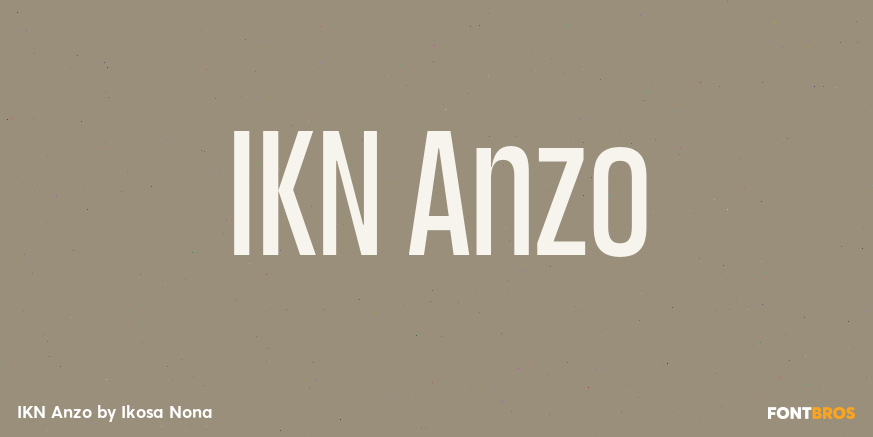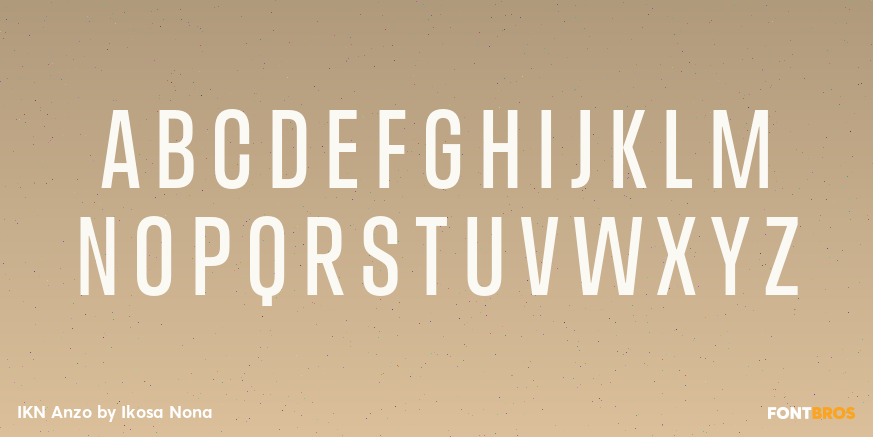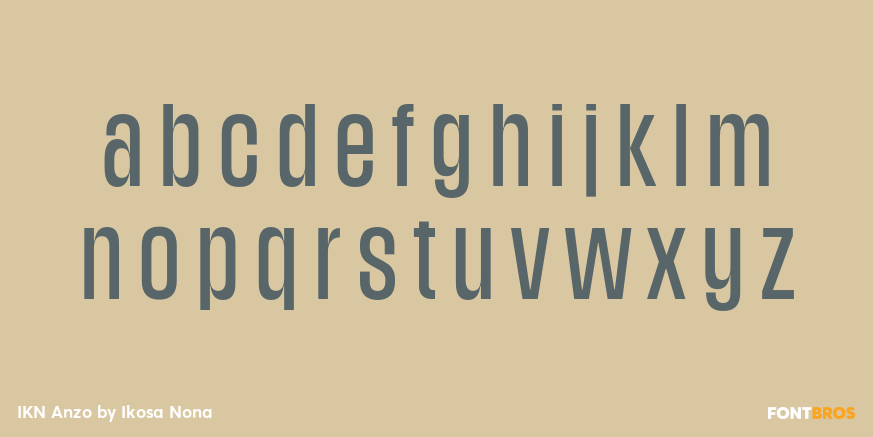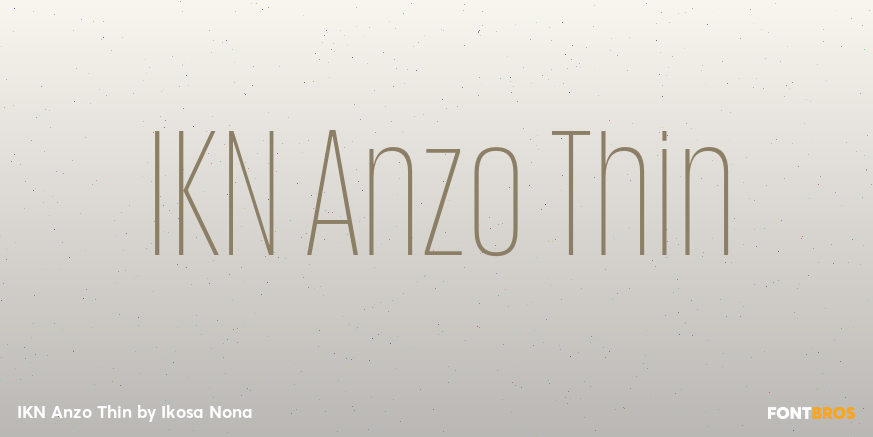
IKN Anzo
Buy NowIKN Anzo is a condensed sans-serif with tall, narrow proportions and a controlled, space efficient structure. It allows more text to fit horizontally while maintaining a confident vertical presence.
Ascenders, descenders, and diacritics are kept close to the core letterforms, creating a balanced and stable text block with an even typographic color.
Six carefully balanced weights provide a range of typographic contrast. Stylistic sets add flexibility through alternate forms for capital I and single-story a, as well as a choice between straight or rounded shapes in selected letters, allowing designers to fine-tune the tone from strictly linear to subtly softer.
Additional features such as circled numerals, slashed zeros, and arrows extend its use in editorial and graphic contexts.
IKN Anzo is well suited for titles, headlines, packaging, branding, editorials, and applications where density, control, and a distinct contemporary presence are essential.